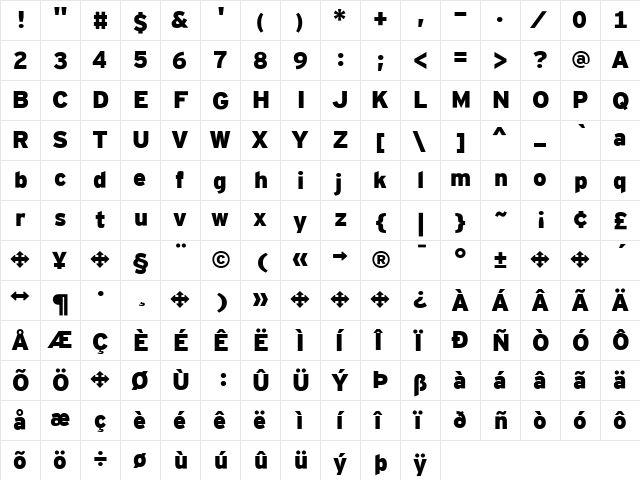
Interstate Mono - Blk Regular
Design Context for Interstate Mono - Blk Typeface
Interstate Mono - Blk uses fixed-width spacing throughout, giving it the structured, systematic character associated with coding environments and technical documentation.
A natural fit for code editors, technical documentation, developer-focused branding, and terminal-inspired UI.
Pro Tip: Pair Interstate Mono - Blk with a proportional sans for UI contexts where code-style labels and regular body copy need to coexist.